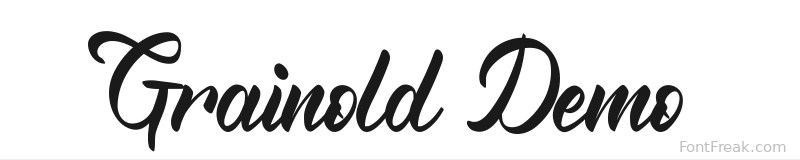
Grainold Demo
Grainold Demo by Noah Type is an elegant display font that combines a modern aesthetic with a touch of classic charm. As a script font, it features fluid, cursive strokes that evoke a sense of sophistication while maintaining a friendly appearance. The unique characteristics of the Grainold Demo font include a moderate stroke weight and a balanced contrast that enhances its legibility. The generous spacing between the letters allows for easy reading, making it suitable for various creative projects. Decorative elements, such as elegant swirls and curves, add an artistic flair that sets it apart from more conventional typefaces.
This font is ideal for a range of applications. Wedding invitations can benefit from its romantic vibe, making them feel more personalized and special. Additionally, Grainold Demo can elevate movie posters, giving them a stylish and contemporary look that captures attention. Restaurant menus will also shine with this font, as it adds a touch of class and sophistication, enticing diners with its appealing presentation. Content creators and graphic designers will find this font particularly useful for branding materials, social media graphics, and promotional content, ensuring their visuals stand out in a crowded market.